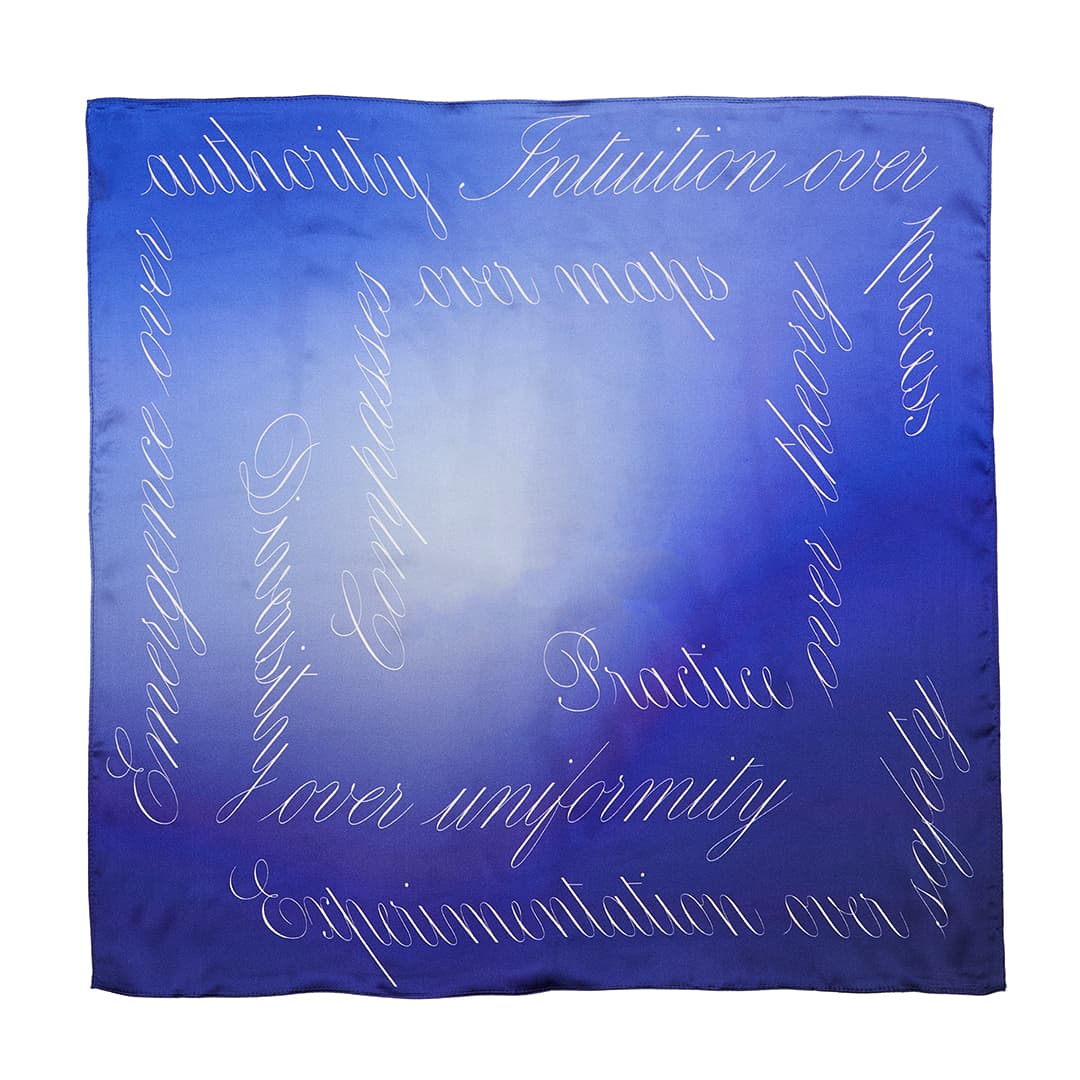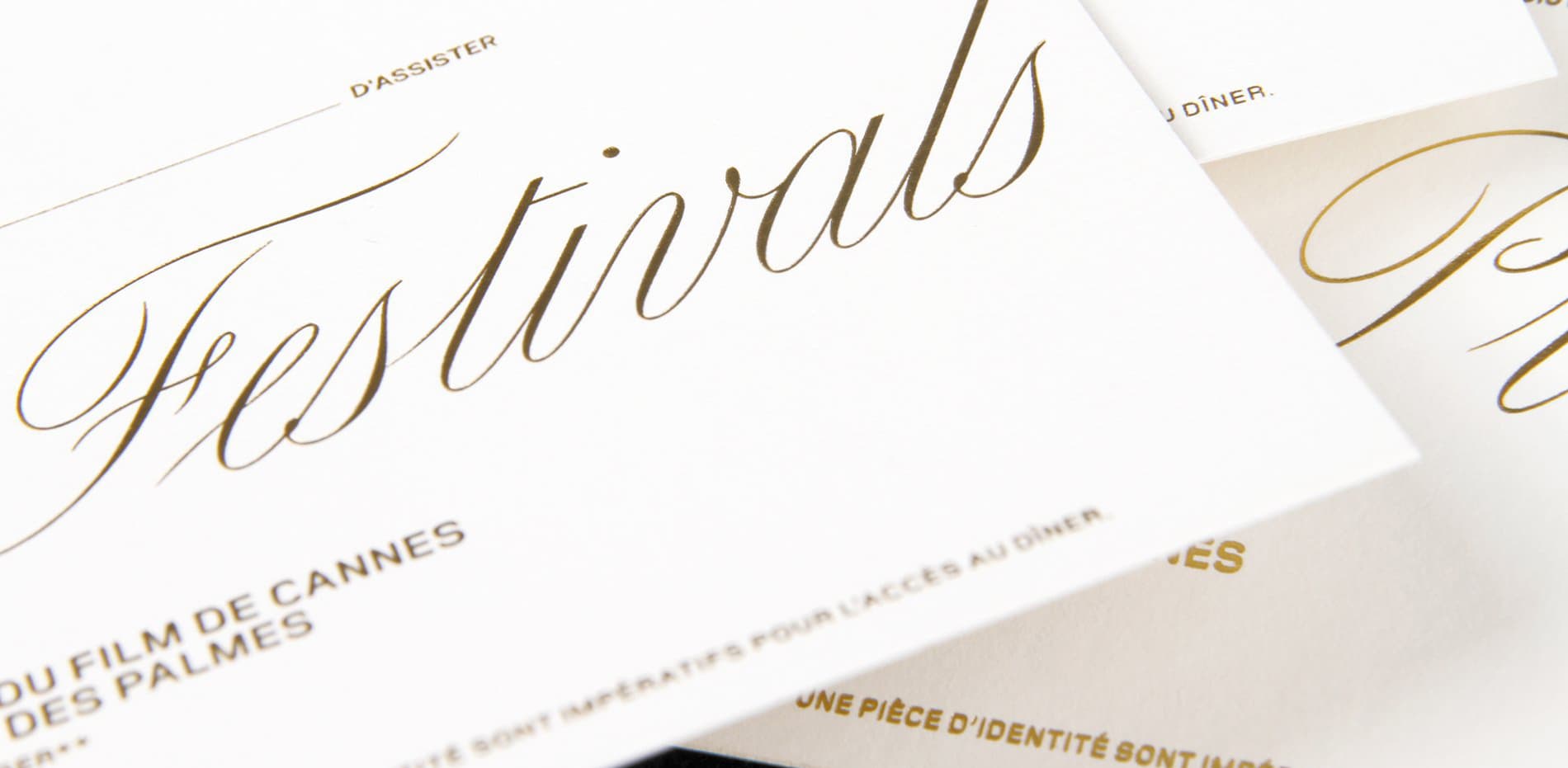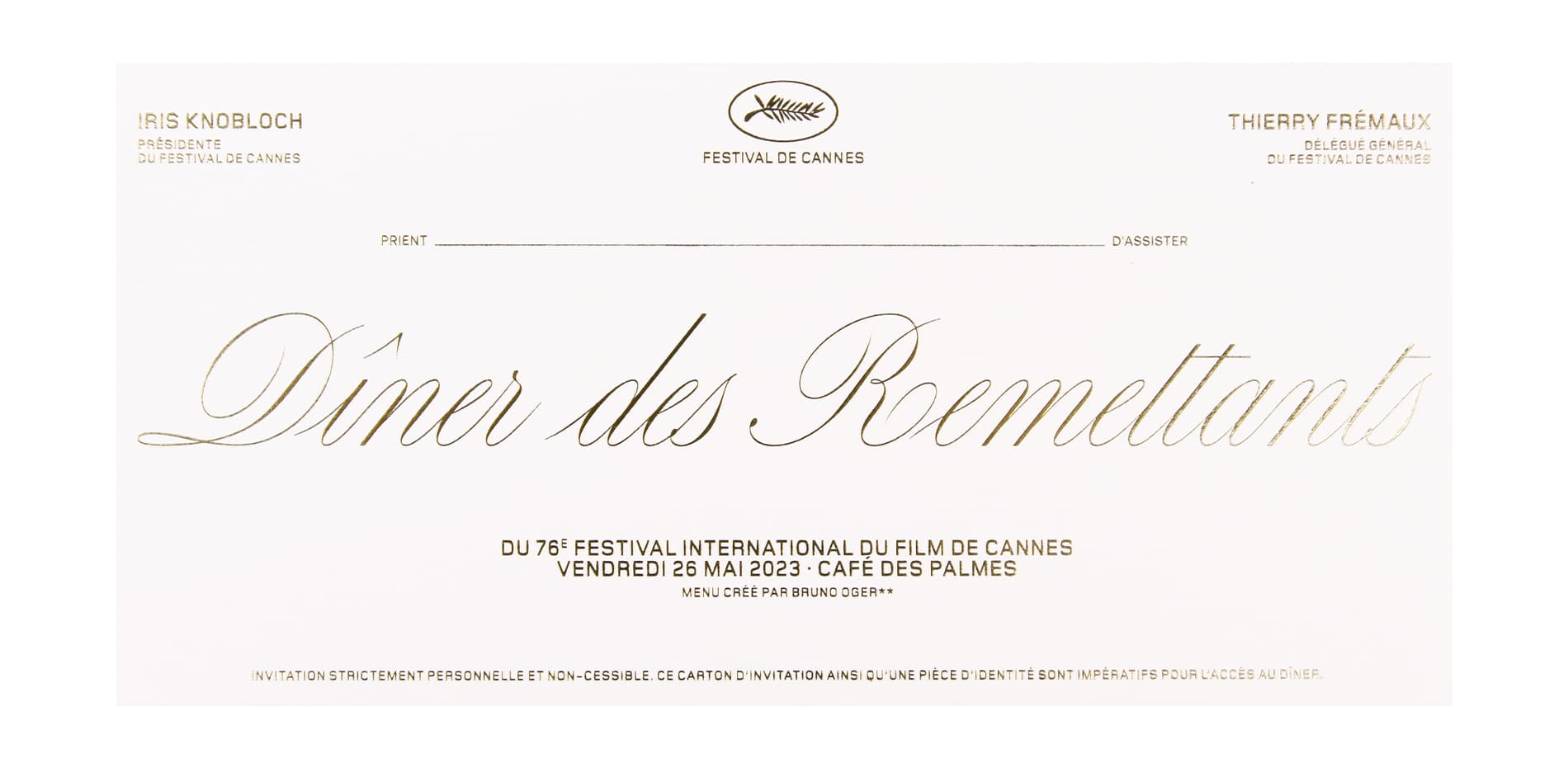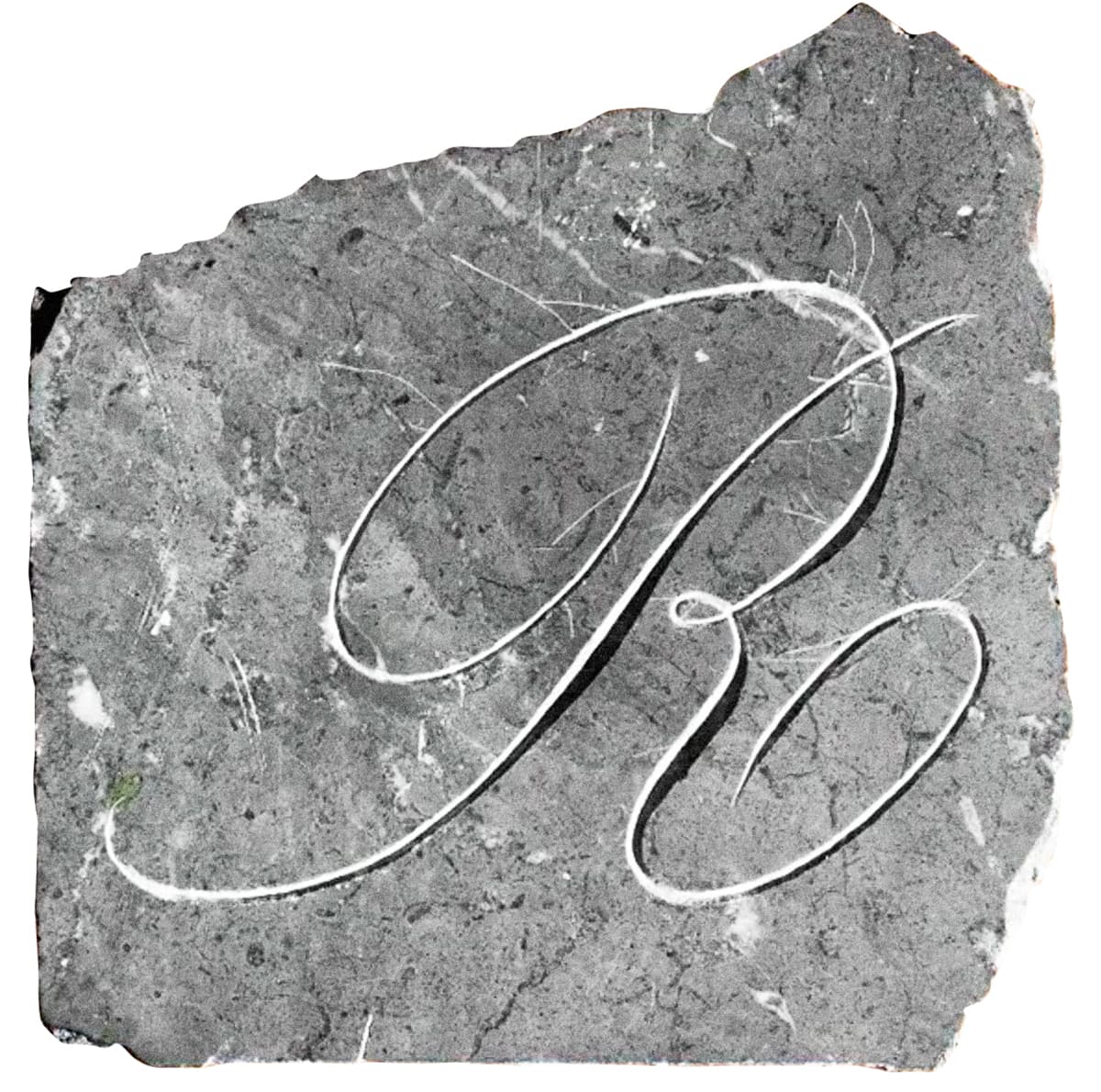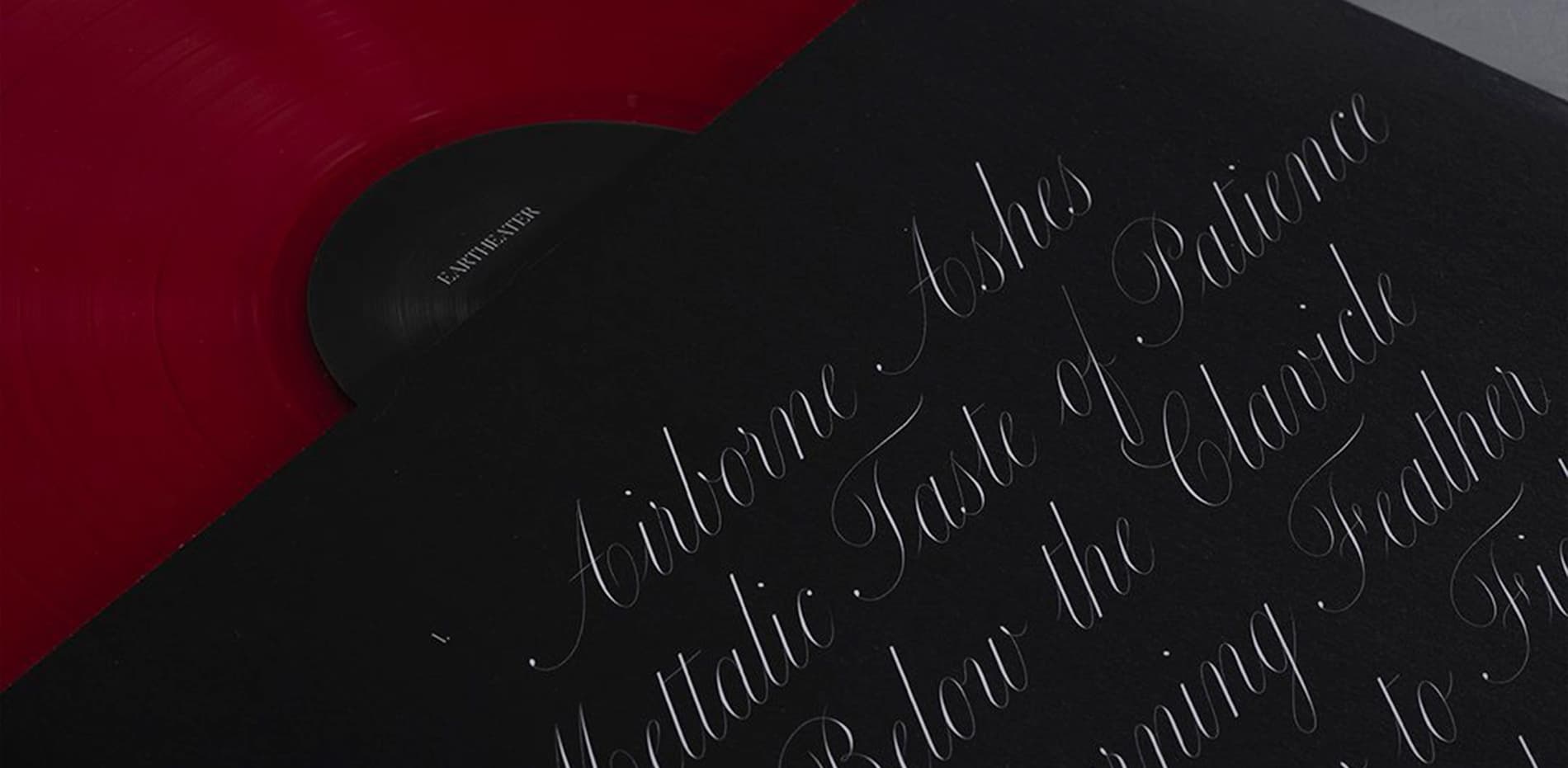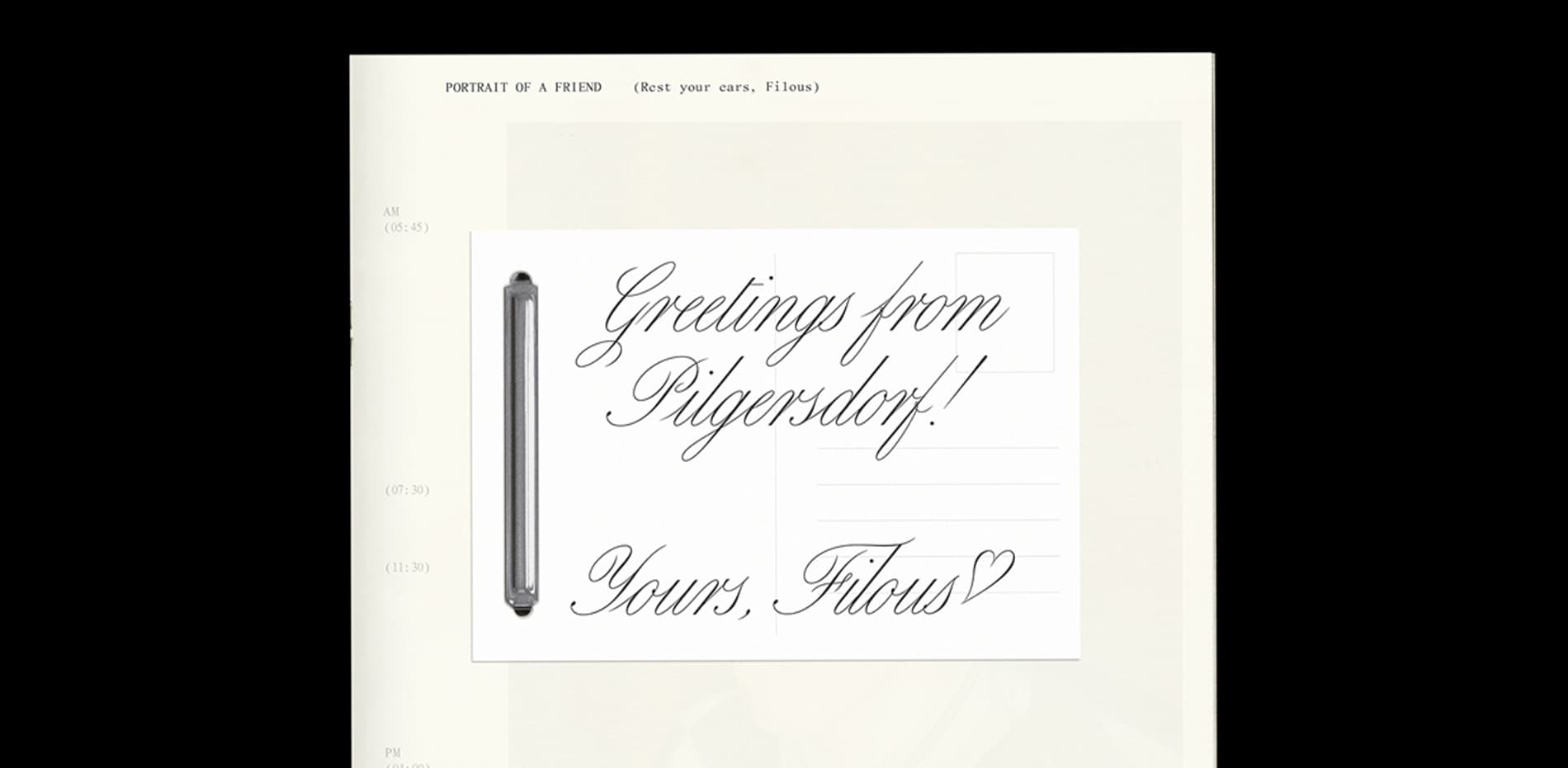
Carta Nueva
Carta Nueva is the digital re-imagination of a pointed-nib calligraphy model from 1851 in Barcelona, Spain (designer unknown). 170 years after the original calligrapher’s penning and printing, the manual made its way into our hands at an antique fair in Madrid. When type designer My-Lan Thuong began designing Carta Nueva in 2019, she could not have anticipated just how far these letterforms would take her. Under her care and imagination, we knew the spirit of the letterforms would be treated thoughtfully and take on a new life of their own for the 21st century. Much like its designer, Carta is poised and lively, with an unbounded potential for growth and flourishment.
Carta Nueva Stone Carving
Carta Nueva Stone Carving by My-Lan Thuong, 2019.
In use for The Cannes Film Festival
Carta Silk Intuition Scarf
Carta Silk Intuition Scarf Showcasing Directional Scripts.